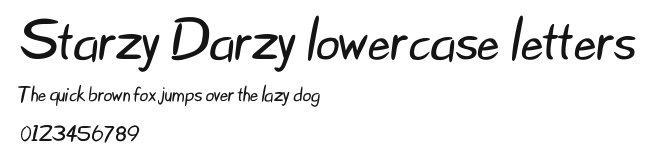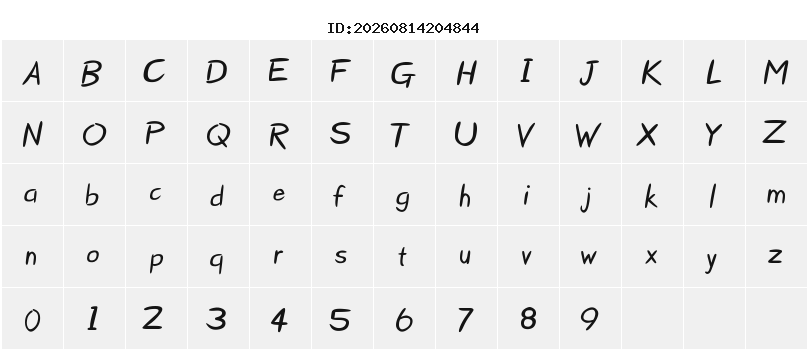
• Font Name: Starzy Darzy lowercase letters
About Starzy Darzy lowercase letters.ttf
Starzy Darzy lowercase letters.ttf is a modern, elegant sans-serif font designed for ultimate readability and visual harmony. Perfect for branding, headlines, web design, and print materials.